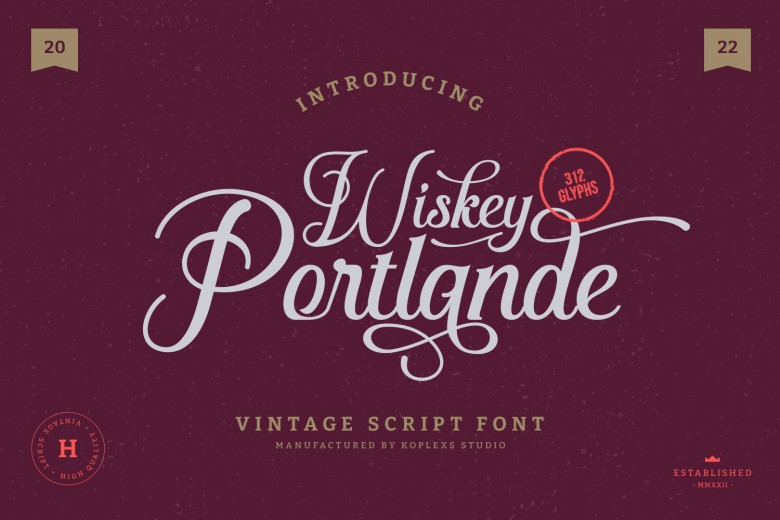
Wiskey Portlande Font
Wiskey Portlande is a fresh original script. Whose inspiration is drawn from the traditional handwritten that are seen or envisaged in the script that was drawn in the 1980s, a type of calligraphy that is simple but not efficient.
But I made several alternative variations really enhance the soul into it as the choice of a type of display that is multifunctional and it will certainly beautify your design and make it look professional and character finally every detail creates the appearance of luxurious designs, elegant from a light to heavy font.
Wiskey Portlande Calligraphy Script Font